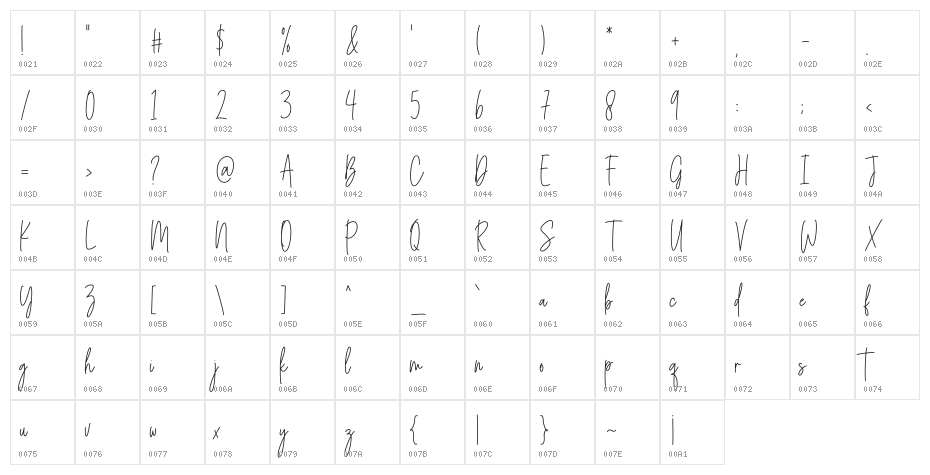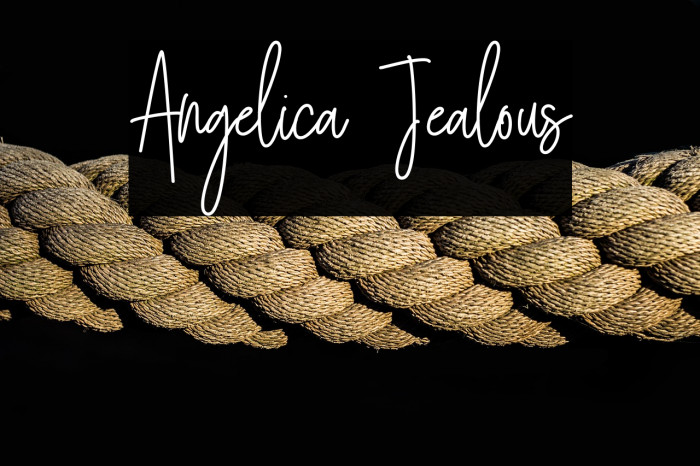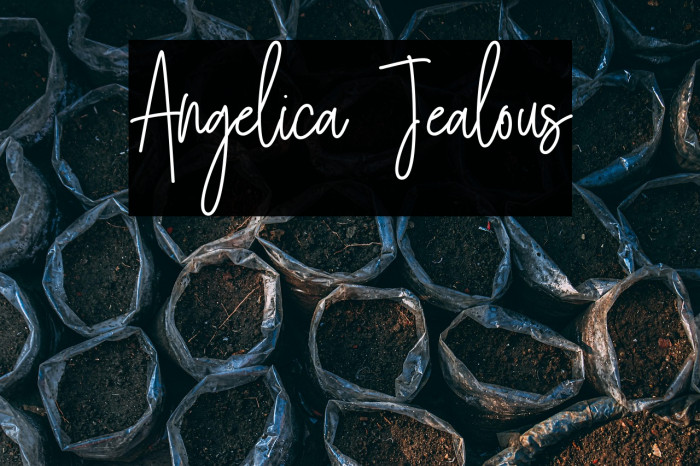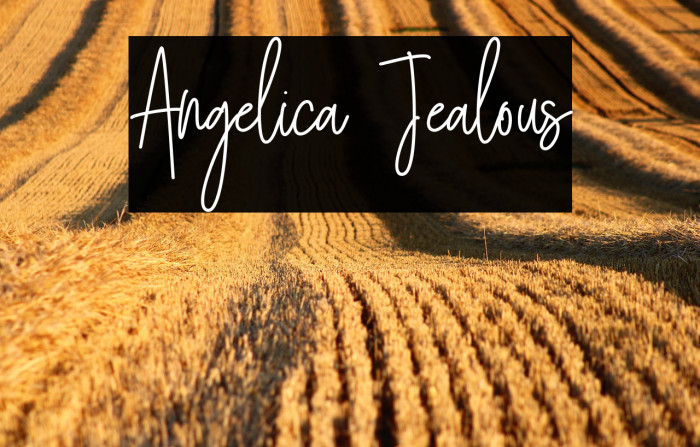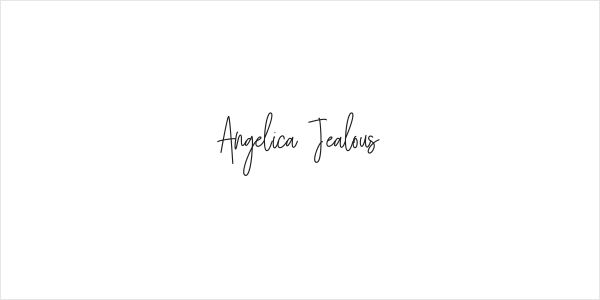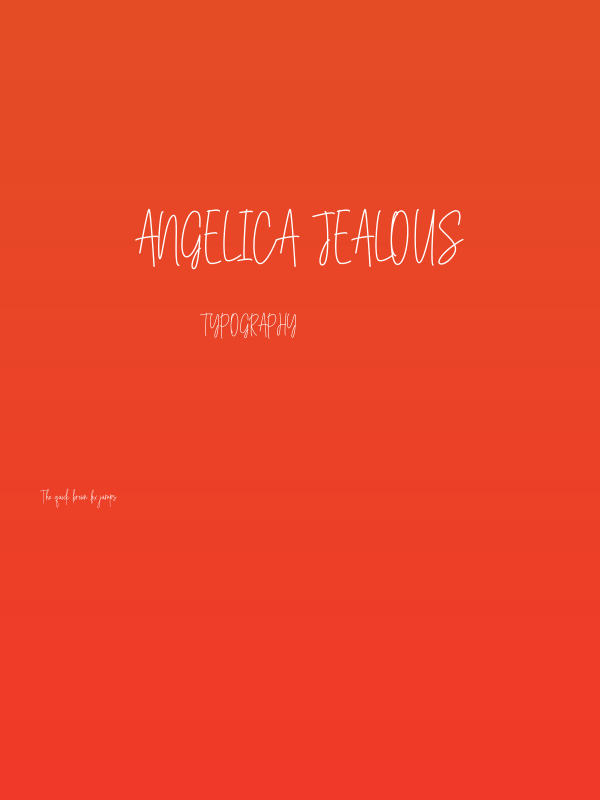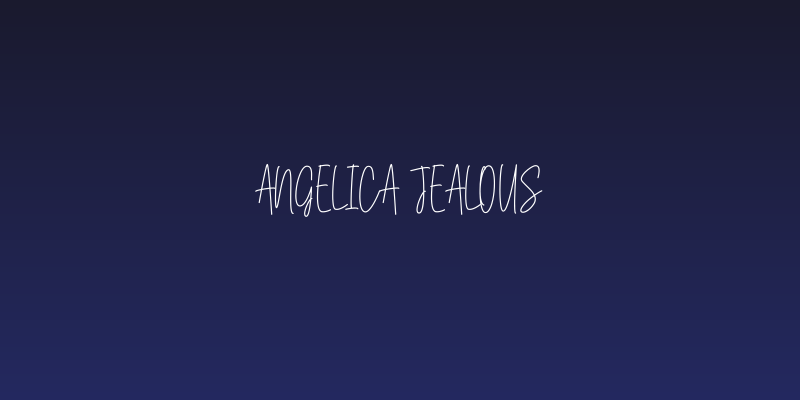
Angelica Jealous Font
Angelica Jealous Description
This font features a playful and whimsical handwritten style, characterized by its tall, narrow letters and slightly irregular strokes that give it a casual, personal touch. The uppercase letters are bold and elongated, while the lowercase letters maintain a consistent flow with a slight slant, adding to the font's dynamic appearance. The numerals and special characters are crafted with the same attention to detail, ensuring a cohesive look across all characters. The overall design is both modern and approachable, making it suitable for a variety of creative projects.
| Proposed Projects | Ideal for greeting cards, invitations, personal branding, and social media graphics. |